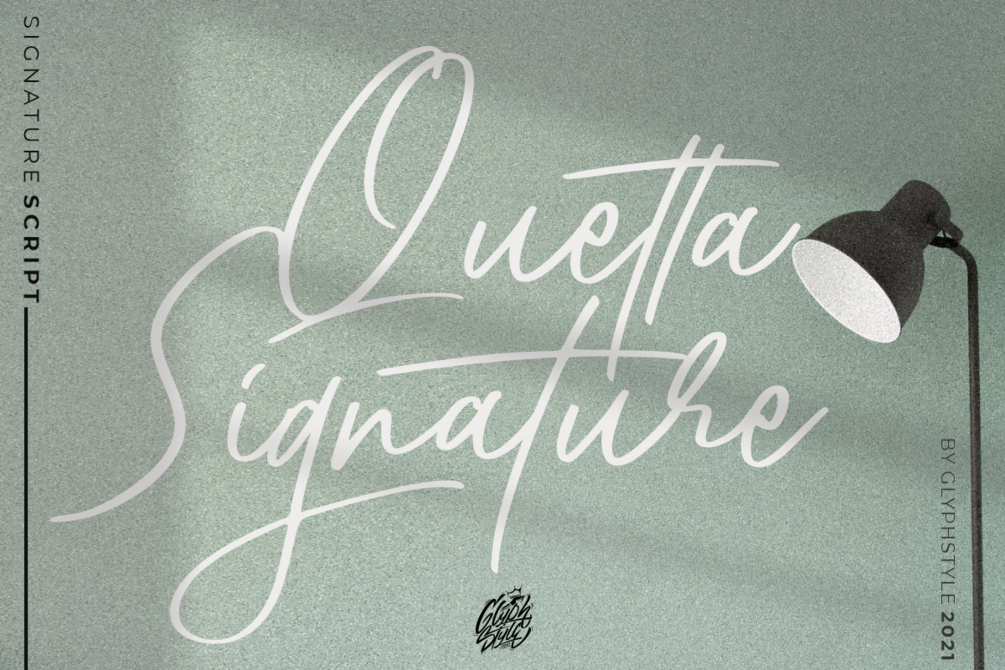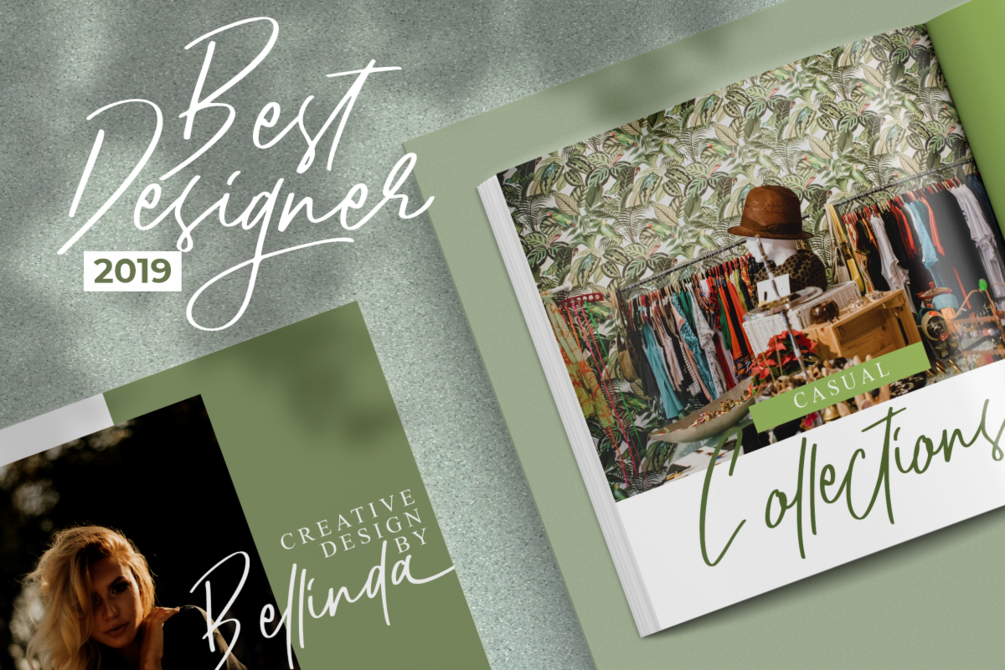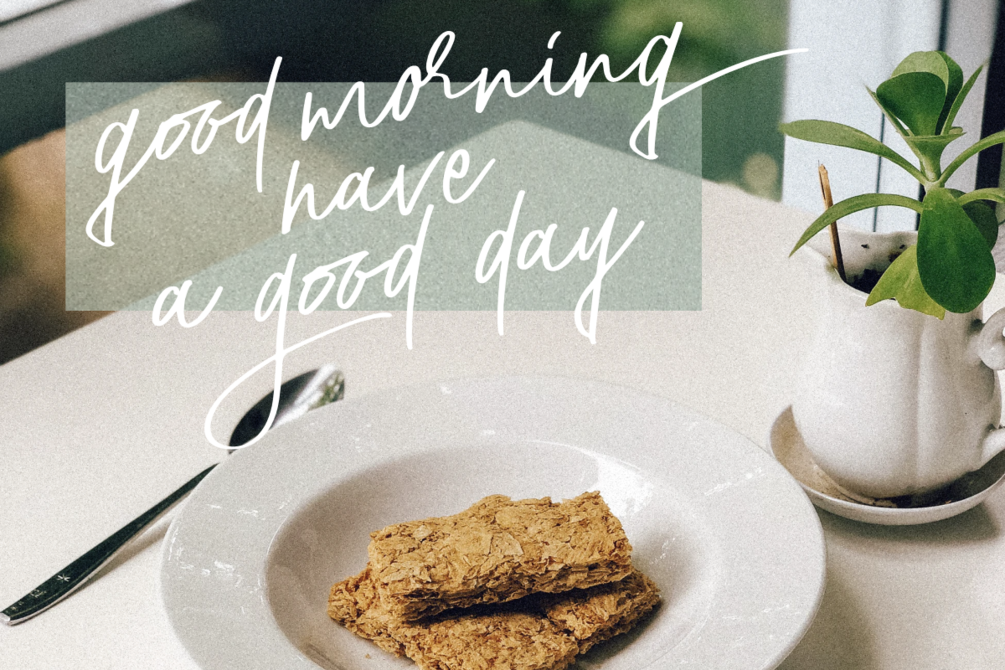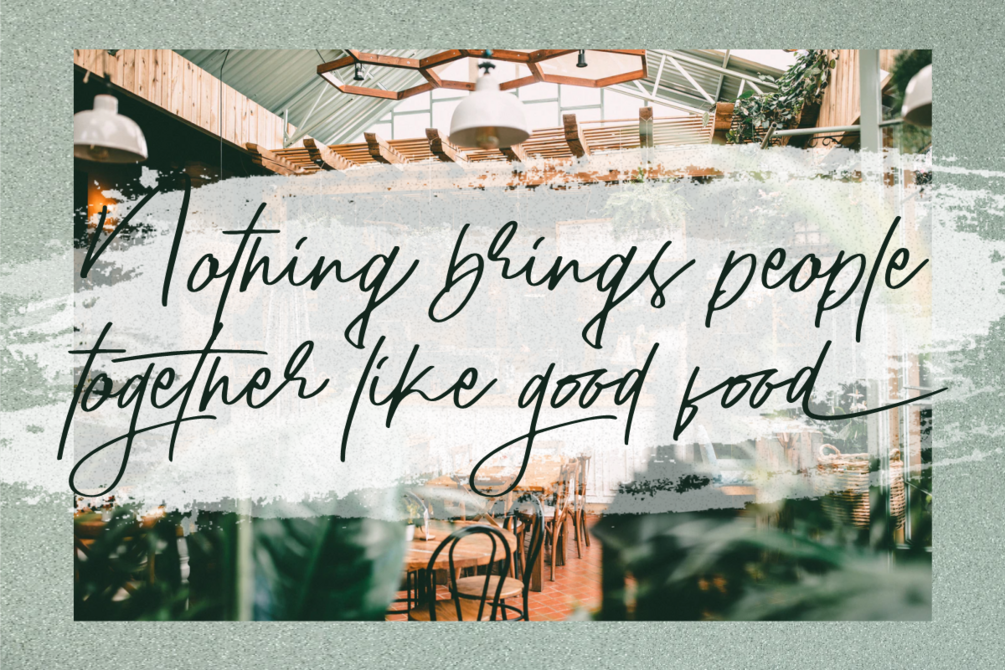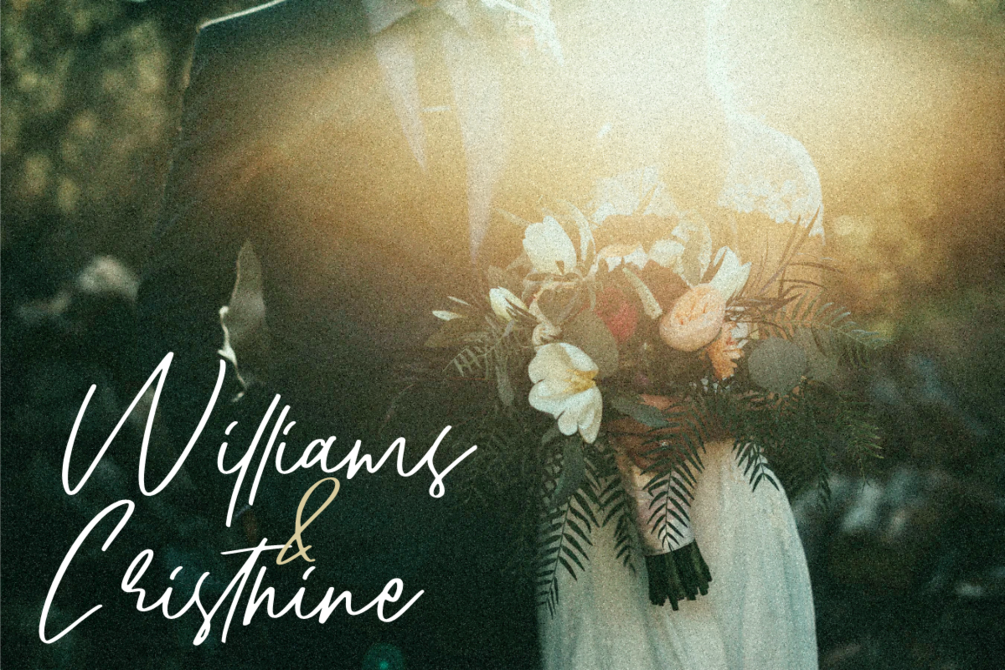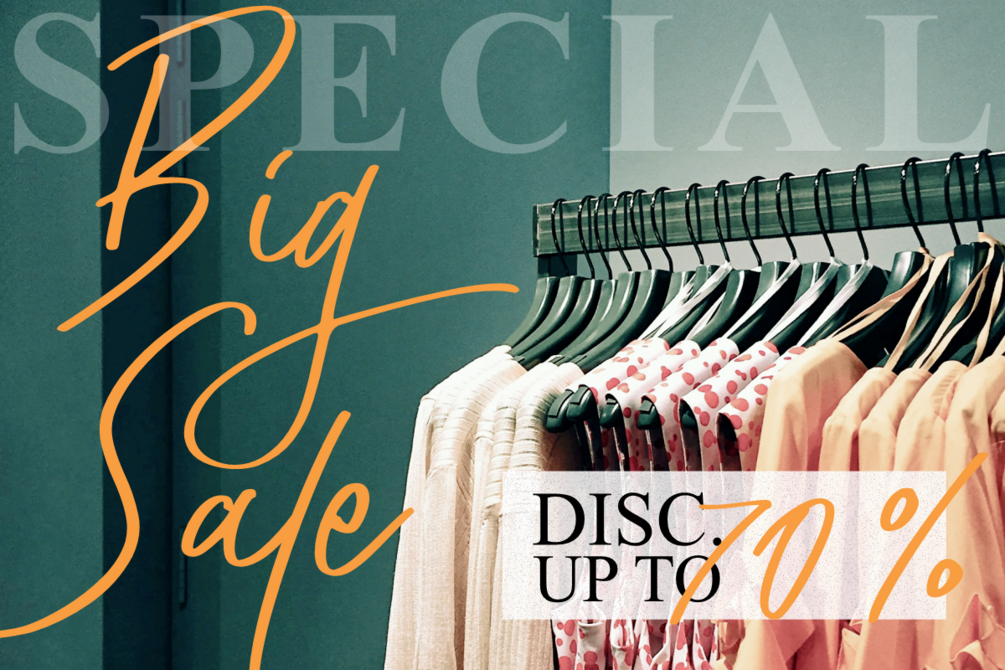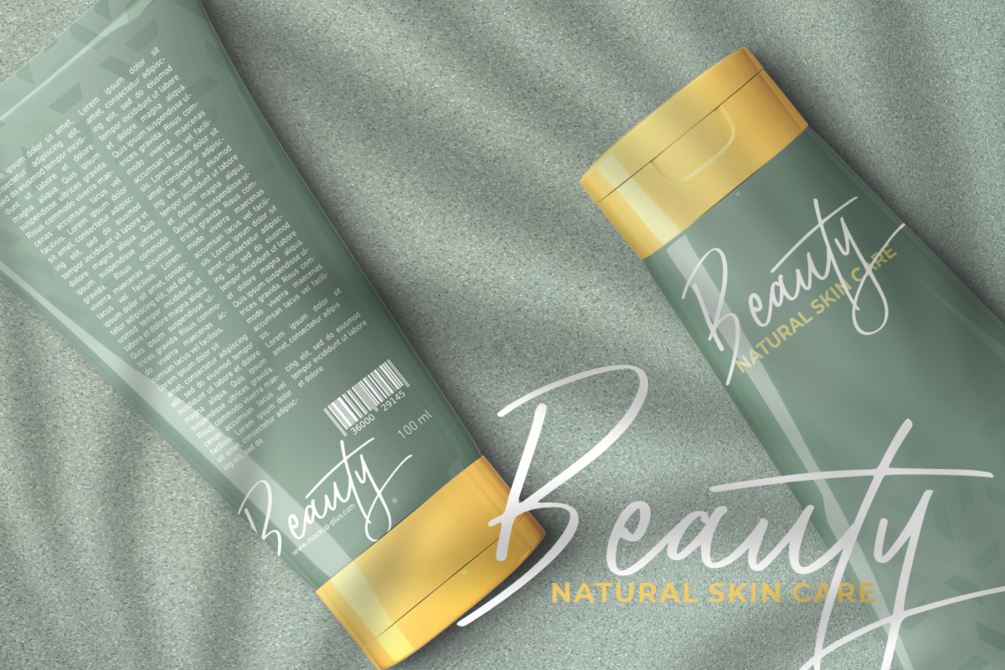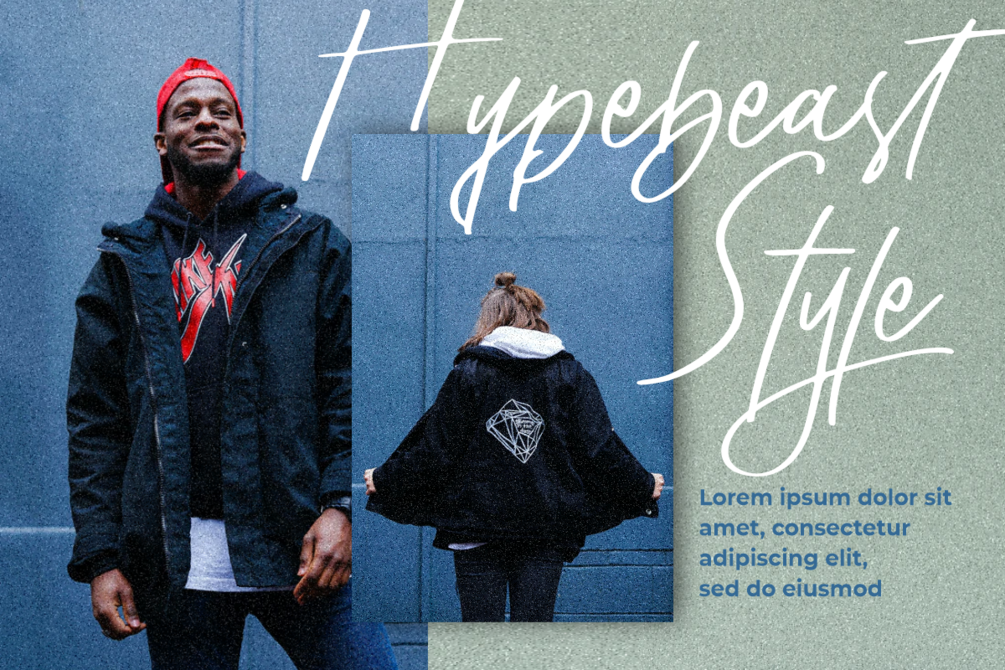
Quetta Signature Script
Quetta is a casual signature style font, a beautiful signature font with natural line movements that make it classy and elegant.
Quetta is perfect for branding projects, logos, wedding designs, social media posts, advertisements, product packaging, product designs, labels, photography, watermarks, invitations, stationery, and any project that requires a sense of Handwritten typeface.
• Lowercase, Uppercase, Numbers & Punctuation, Ligature, Stylistic Alternate, Swash variants